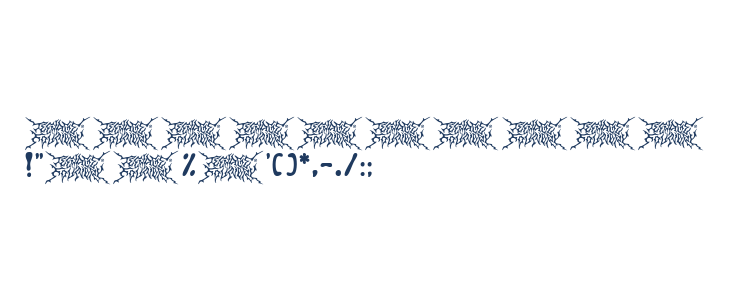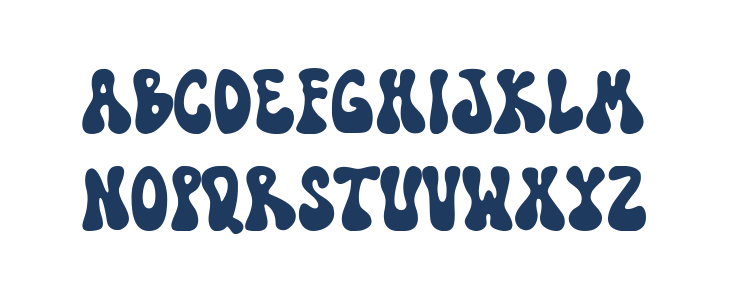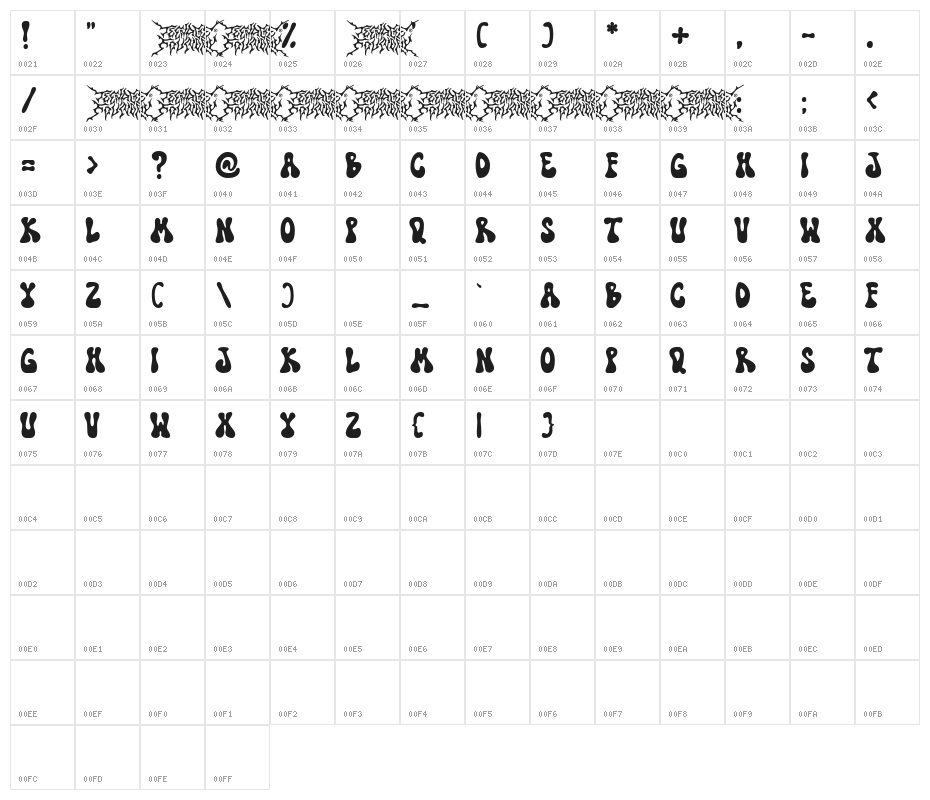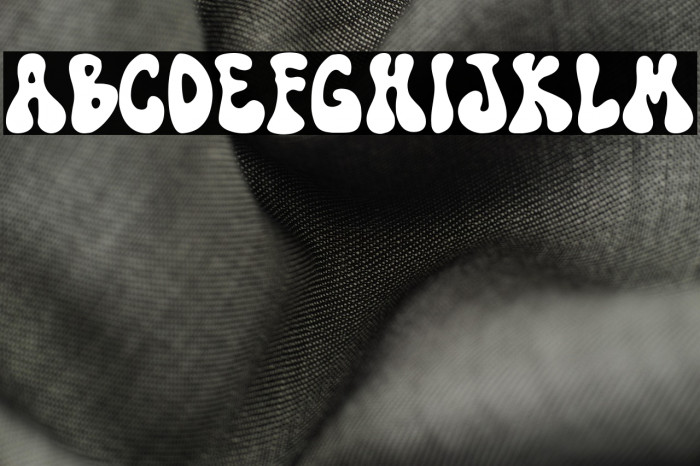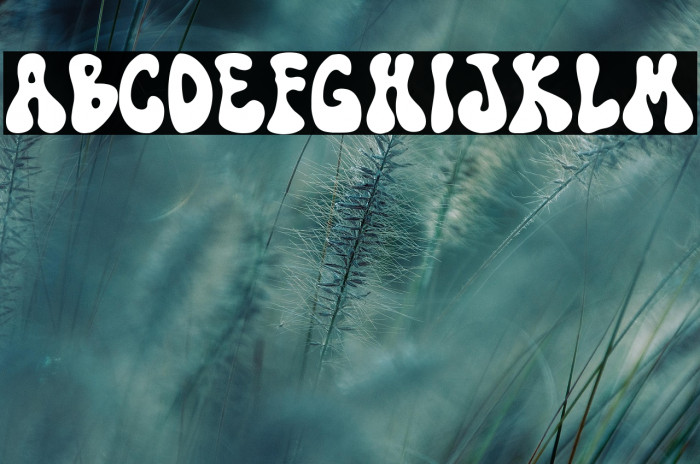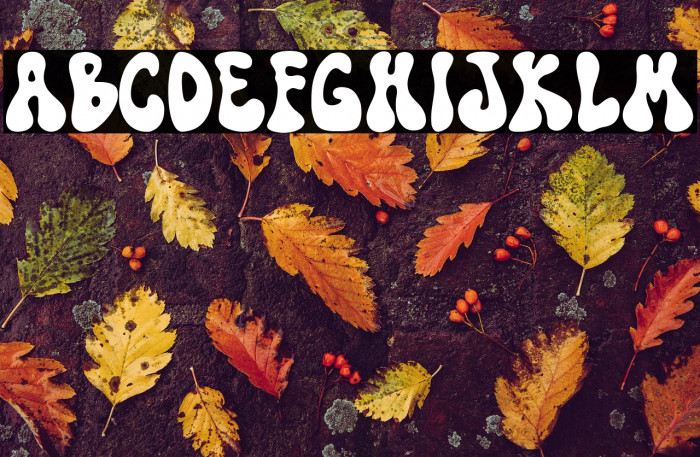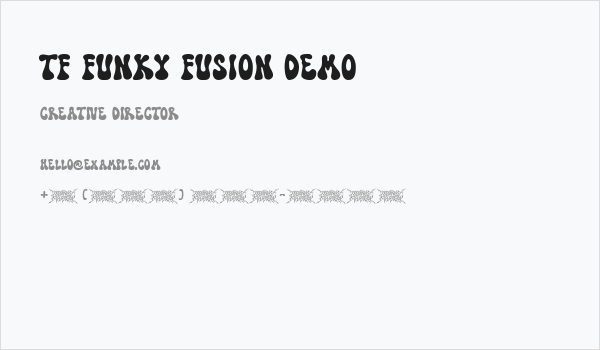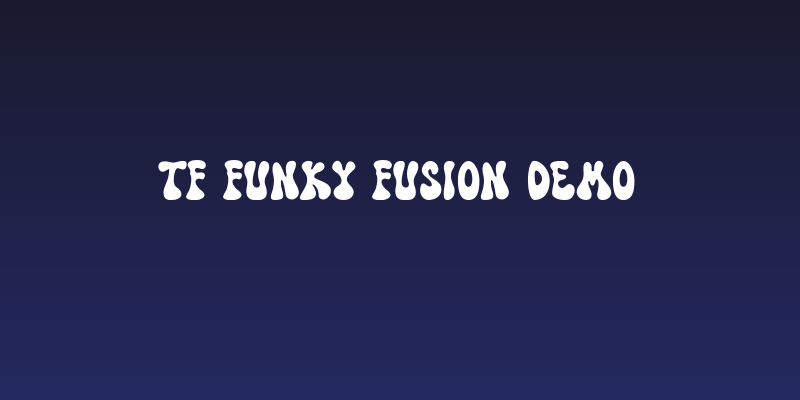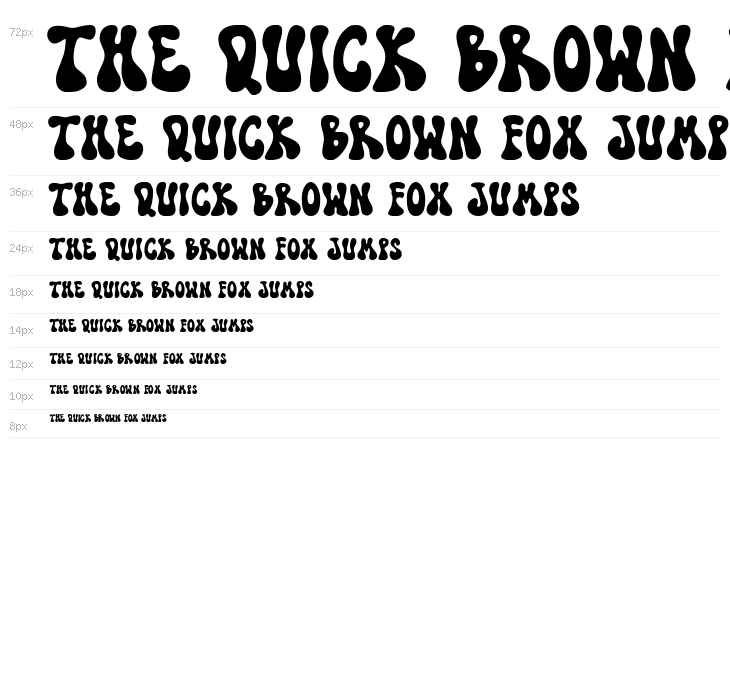
TF Funky Fusion Demo Font
TF Funky Fusion Demo Description
A highly stylized, bold display typeface with organic, blobby letterforms and playful, irregular shapes. The characters are thick and rounded, with exaggerated curves and a whimsical, psychedelic appearance. The font is decorative and eye-catching, making it suitable for attention-grabbing designs.
| Overall Style | Decorative, Psychedelic, Playful, Retro |
| Proposed Projects | Posters, music festival branding, album covers, party invitations, children's books, retro-themed designs. |